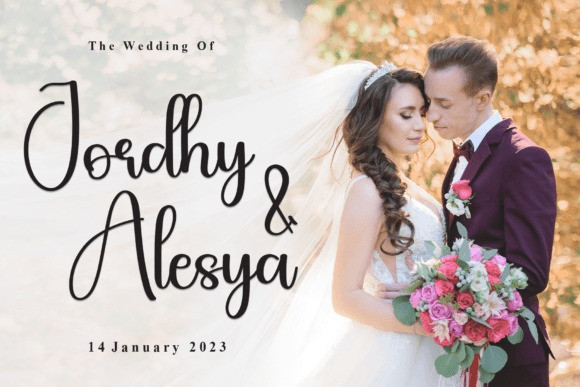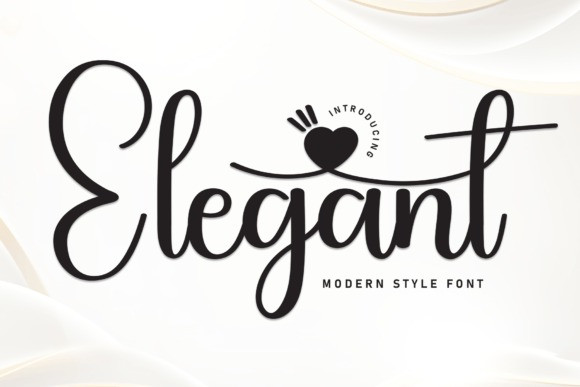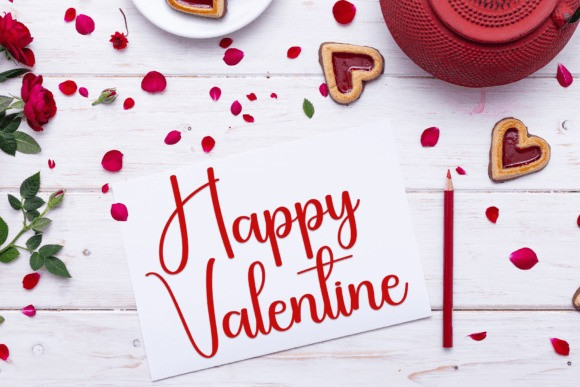
Elegant Type
Elegant Type is an enchanting handwritten font. This versatile script font has a wide spectrum of applications ranging from greeting cards to headlines and is guaranteed to add a romantic feel to your next project.